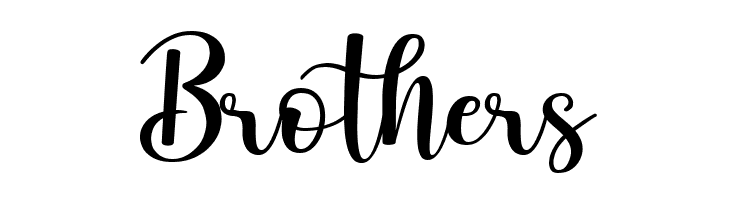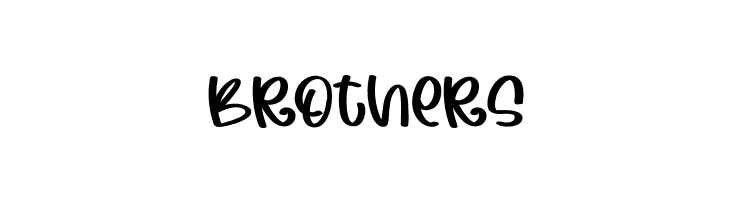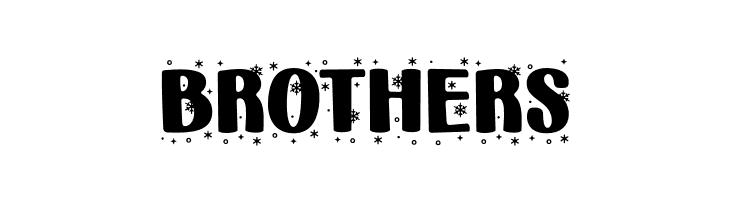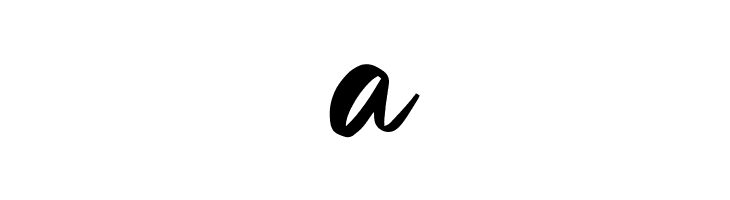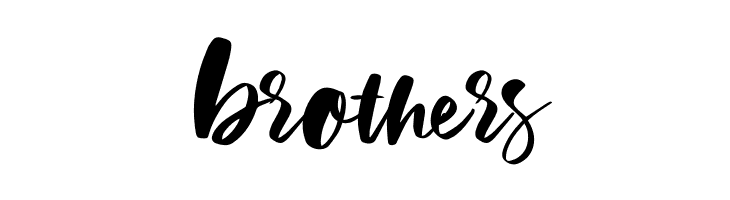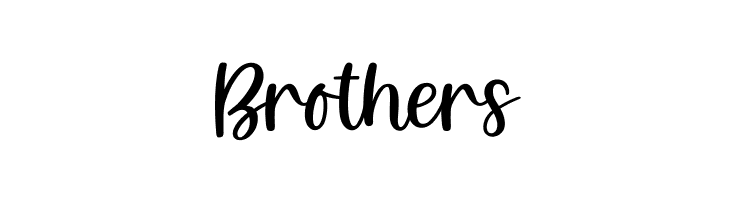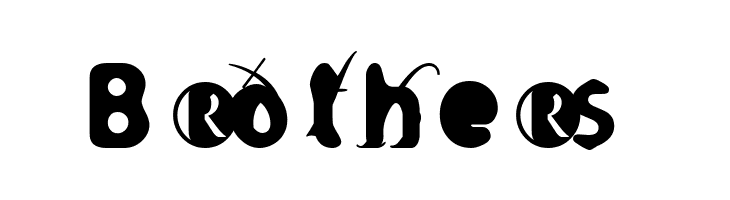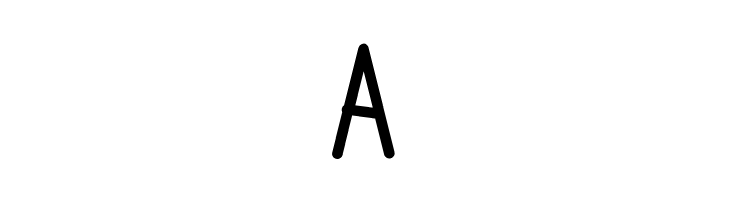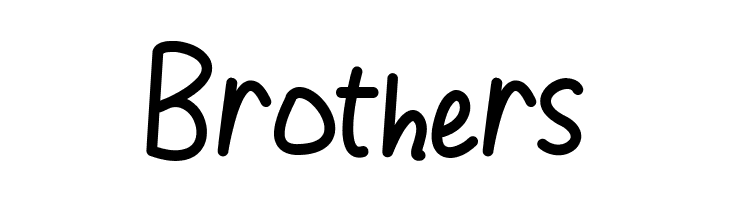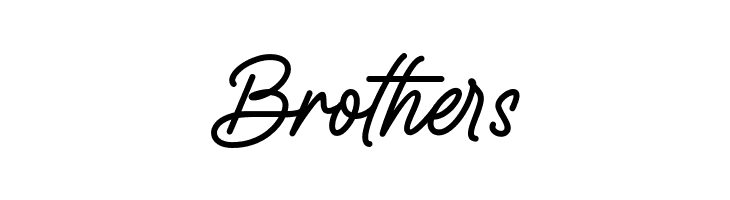
• Holiday Song Regular
A playful, handwritten font with rounded edges and a casual style.
• Holiday Sun
A bold, flowing script font with a lively, handwritten style.
• Holiday Sunday
Playful rounded sans-serif with a handwritten touch.
• Holiday Sweet Lovely
A playful, elegant script font with flowing, interconnected strokes.
• Holiday Wishes
A playful, cursive font with a festive, handwritten style.
• Holiday with Me Regular
Handwritten, playful sans-serif with tall, narrow letters and irregular strokes.
• HOLIDAY ZONE
Playful rounded sans-serif with a hand-drawn, friendly style.
• Holiday_Serif
• Holiday2 Regular
A casual, elegant handwritten font with smooth, flowing lines.
• Holiday2 Regular
A cursive script font with elegant, flowing strokes and a sophisticated style.
• HolidayAL
A playful, handwritten font with smooth, flowing strokes and a casual vibe.
• HolidayBoldAl
A playful, bold handwritten font with a lively and friendly appearance.
• HolidayBoldHr
A playful, bold font with rounded edges and a whimsical style.
• HolidayBoldKt
A bold, playful handwritten font with thick, rounded strokes.
• HolidayEvent
A bold, playful script font with flowing, connected letters.
• HolidayFree
A dynamic, cursive script font with a lively, handwritten style.
• HolidayFunday
A playful handwritten font with a friendly and casual style.
• HolidayHR
A playful, casual handwritten font with smooth curves and a friendly appearance.
• HolidayHrTate
Expressive, abstract handwritten script with decorative flair.
• HolidayIllustA
Hand-drawn doodle font with holiday and summer-themed icons.
• HolidayIllustB